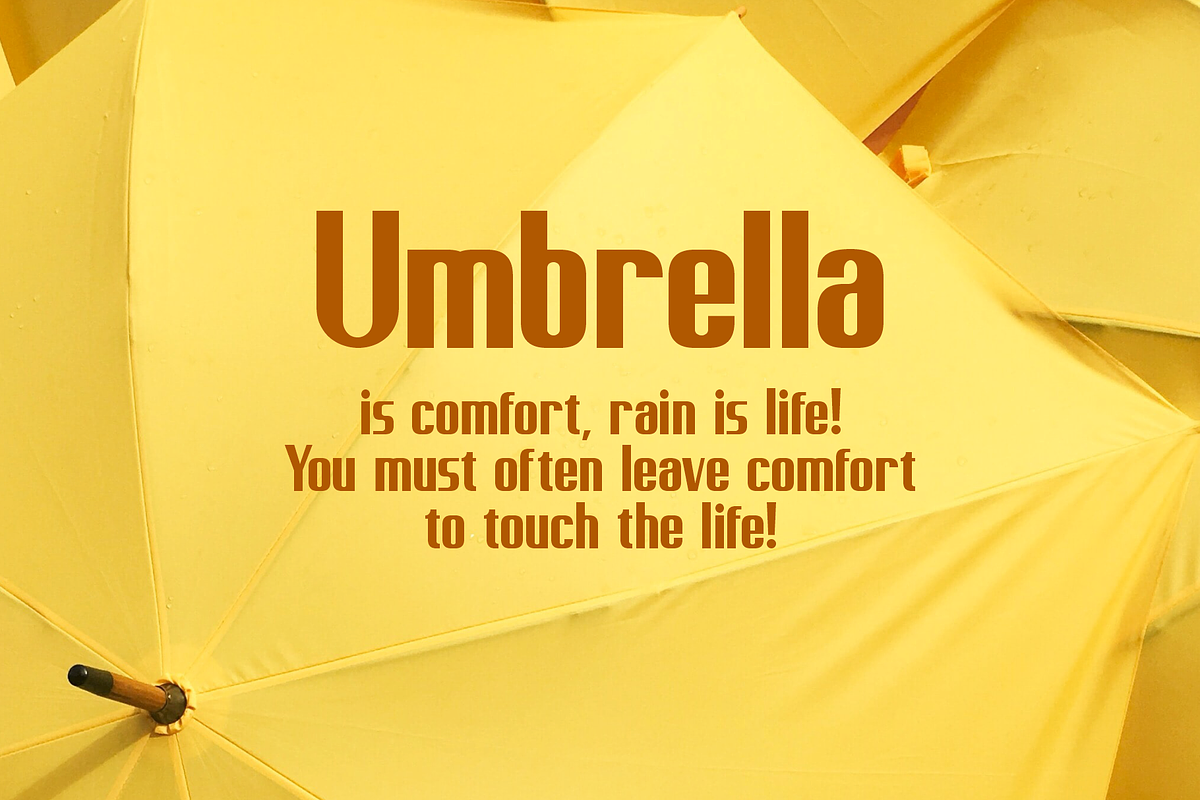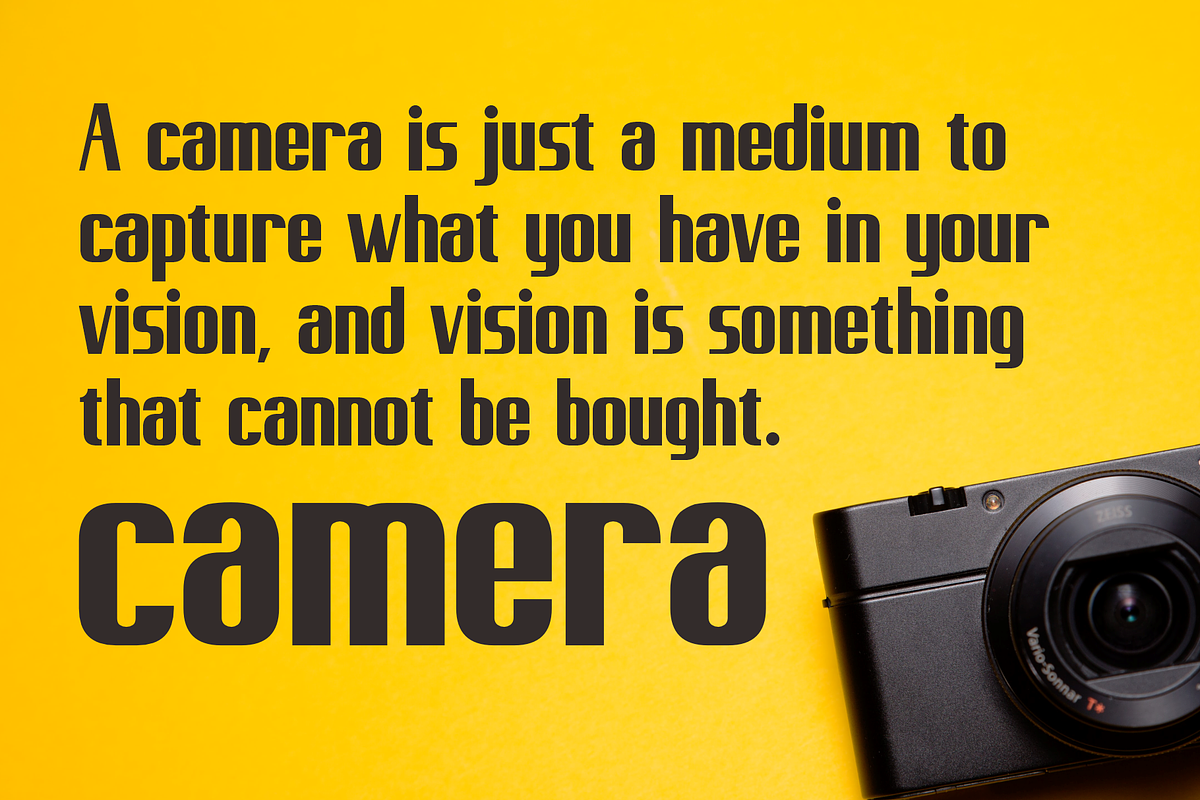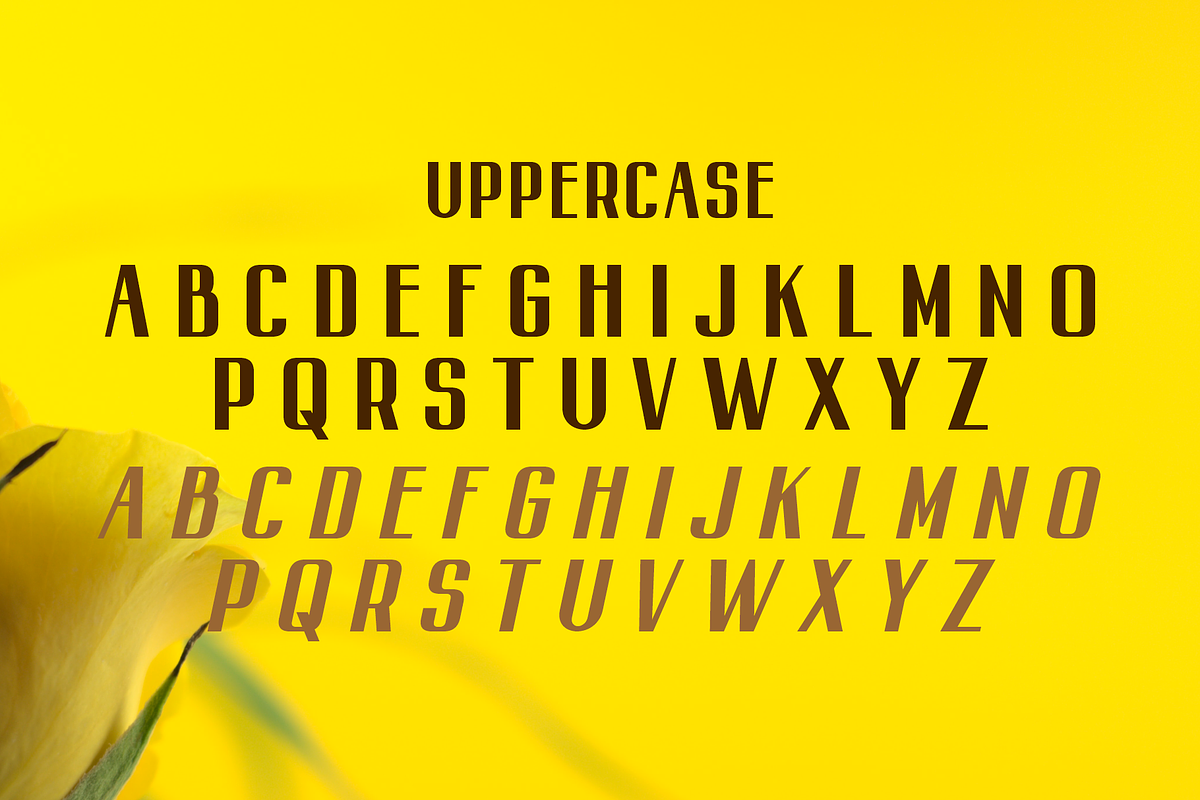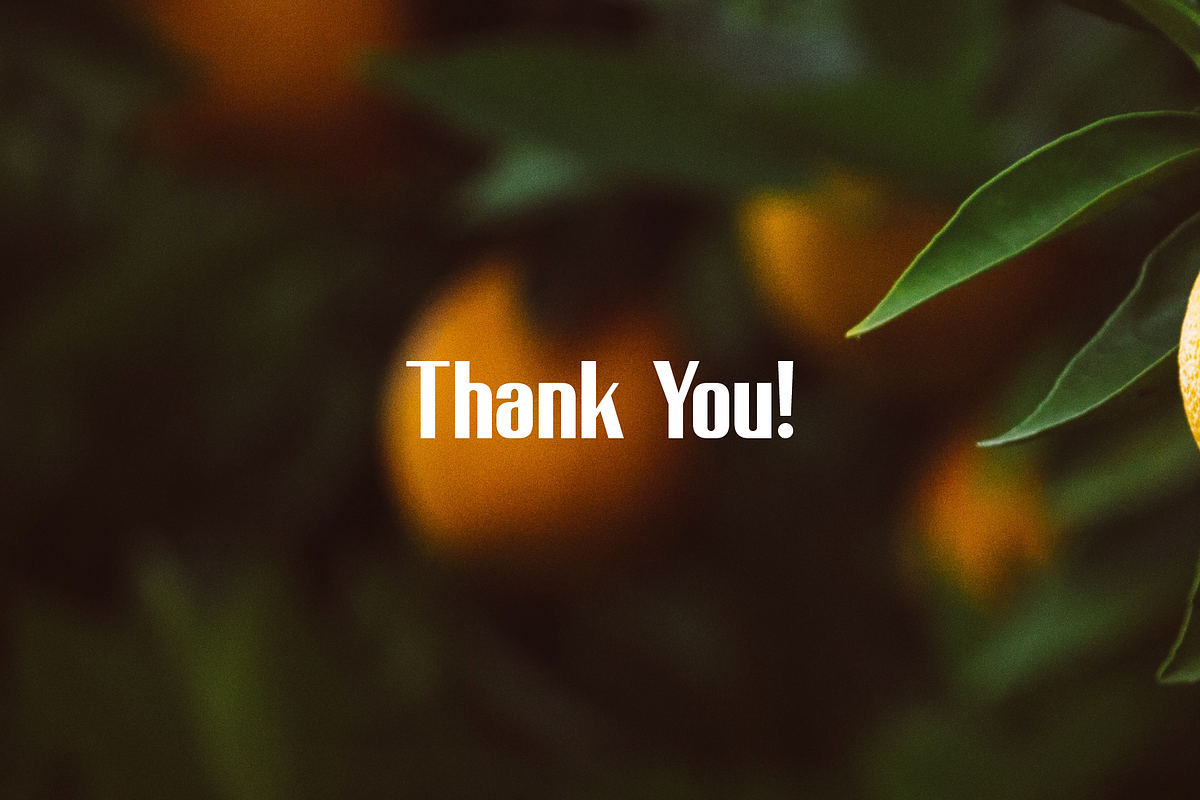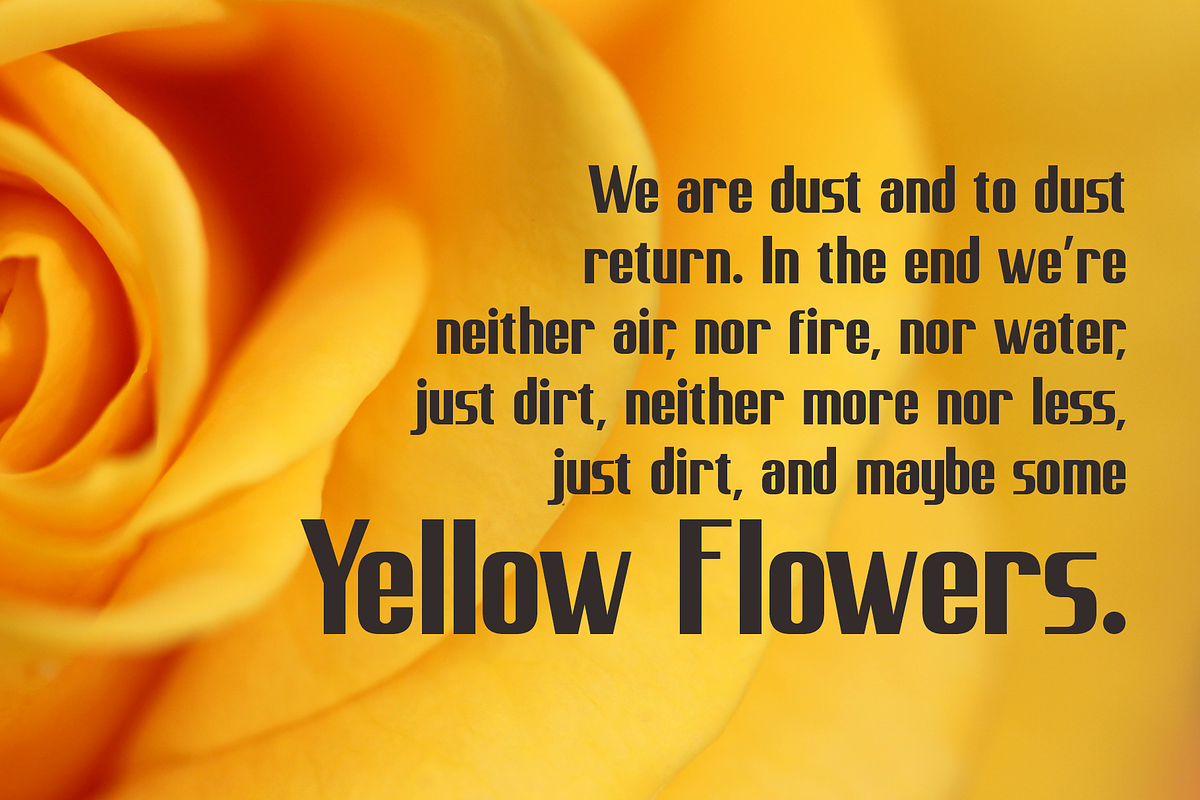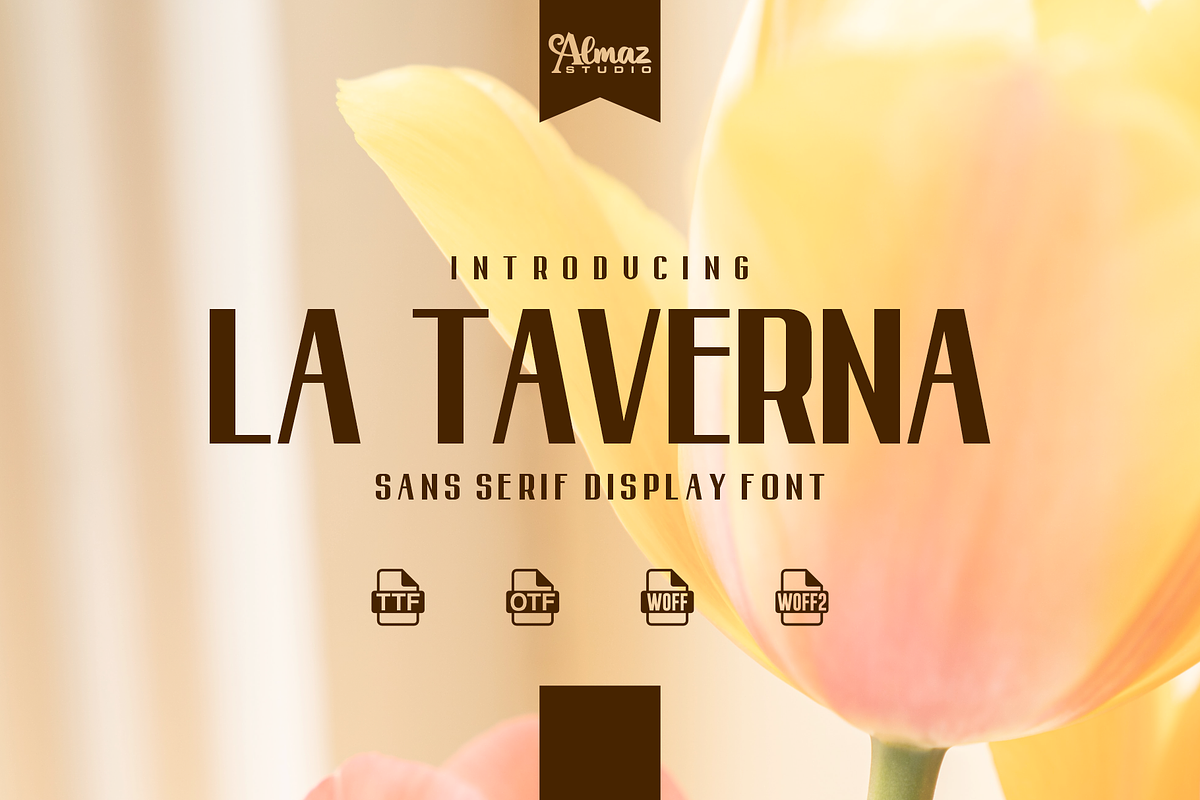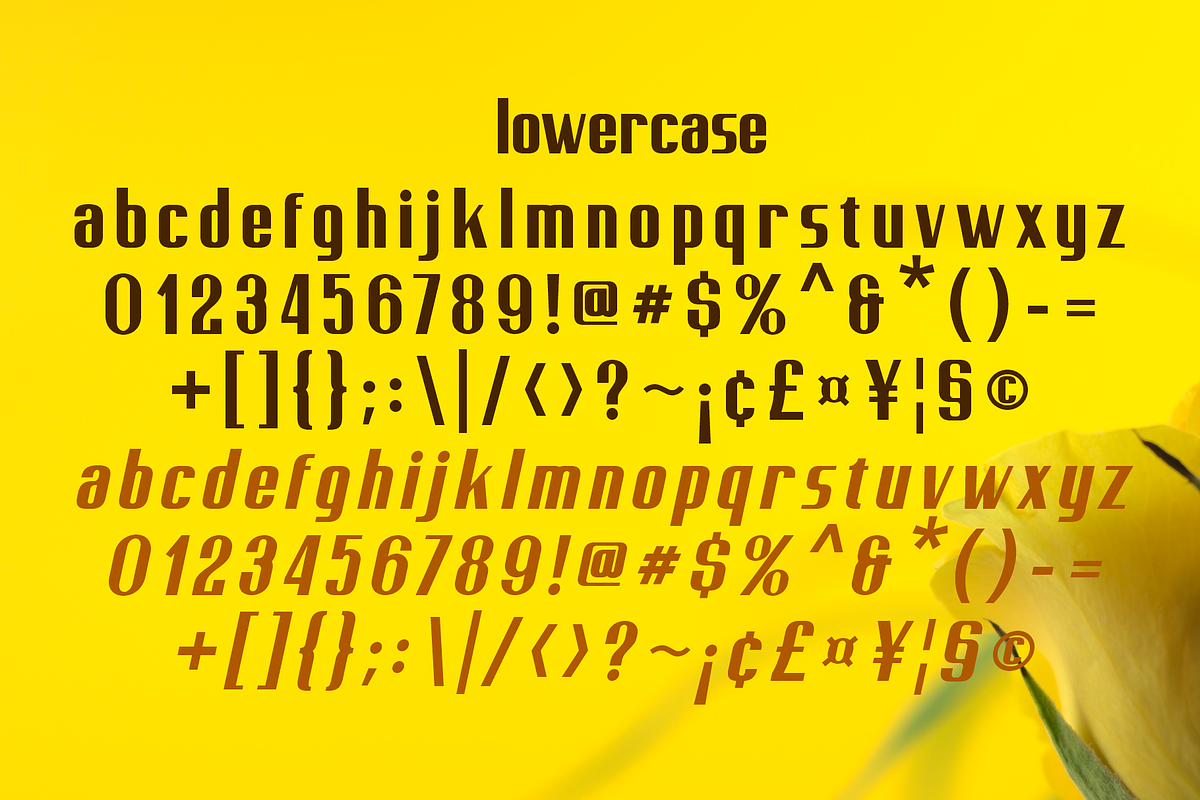
La Taverna
La Taverna an elegant sans serif font created by Almaz Studio™ with a modern touch, minimalist geometric style. La Taverna is a futuristic sans serif font that takes on the theme of advanced technology. This font is good to use as a headline or title of a magazine, print, poster, web font, etc. the body of this font is square with a little curved on each side. inspired by spaceship construction on pop culture depictions. La Taverna is an ultramodern, ultra compact sans serif typeface. It was designed for maximum compression, allowing you to fit more words in a line than techno typefaces normally allow. La Taverna is at the normal typeface compression limit. Crammed is unusually compact. Crushed is ludicrously concentrated. La Taverna almost all current Latin-based languages are supported.
- Complete characters uppercase, lowercase, numeral, and punctuations